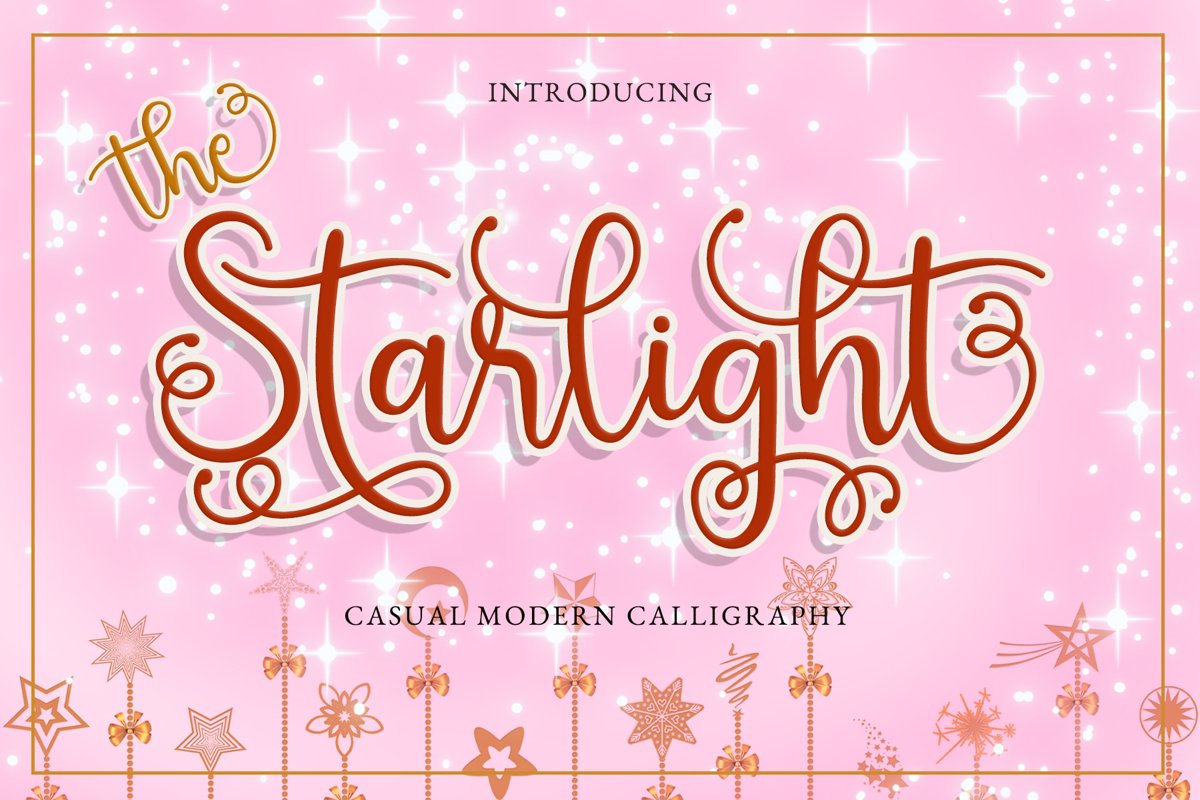
The Starlight - Calligraphy Script Font
The Starlight is casual modern script that will make your design look more elegant and more luxurious. This font is perfect for your wedding invitation, social media quotes, and many others.